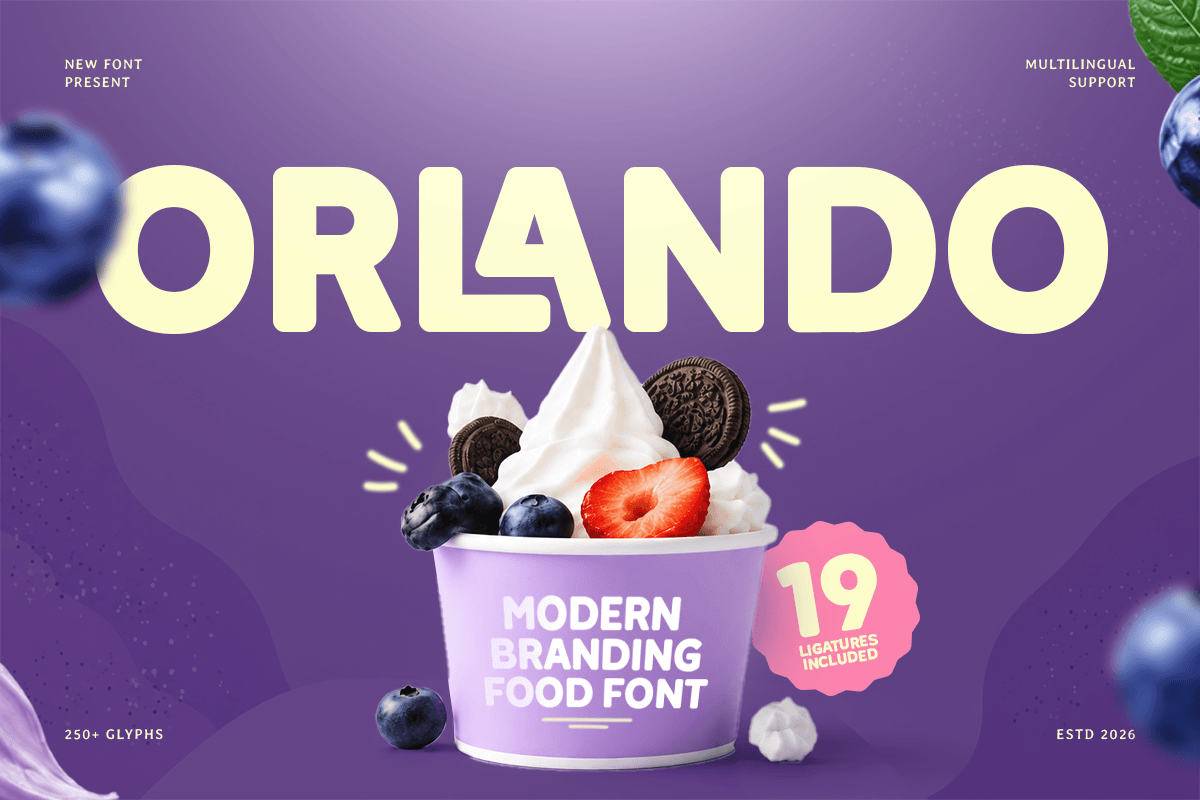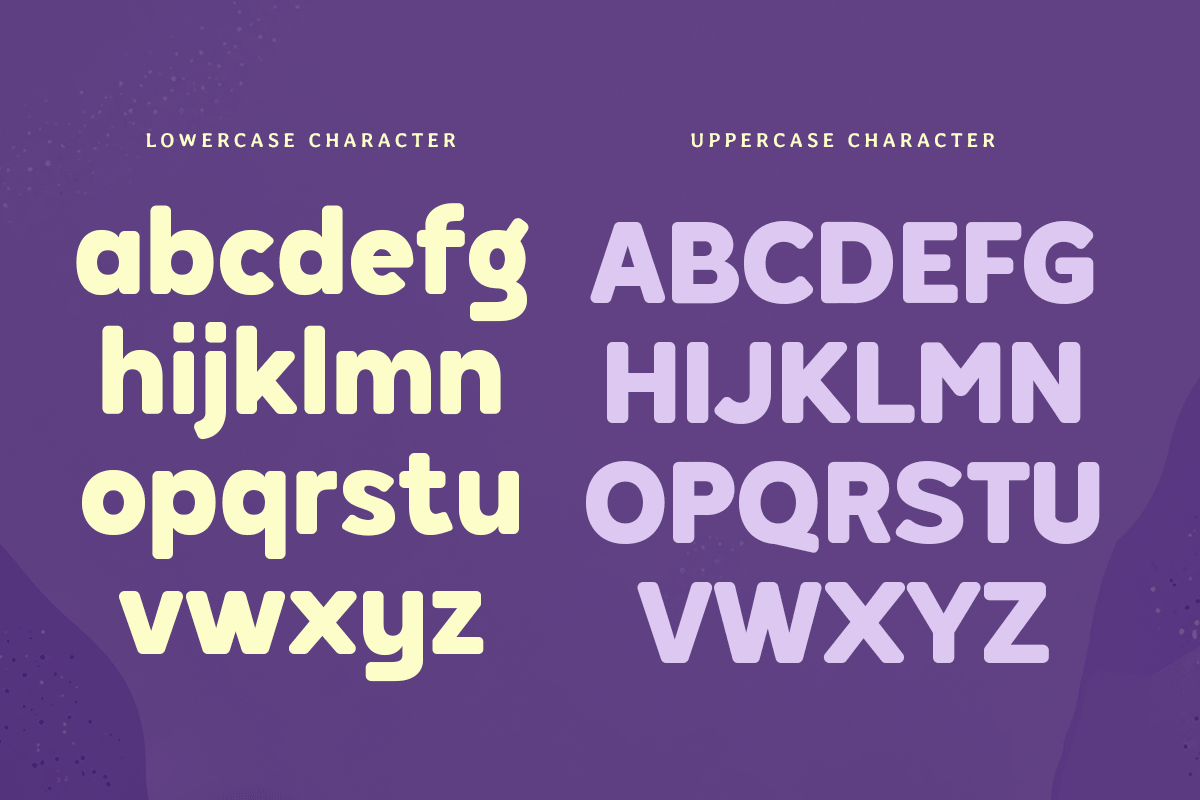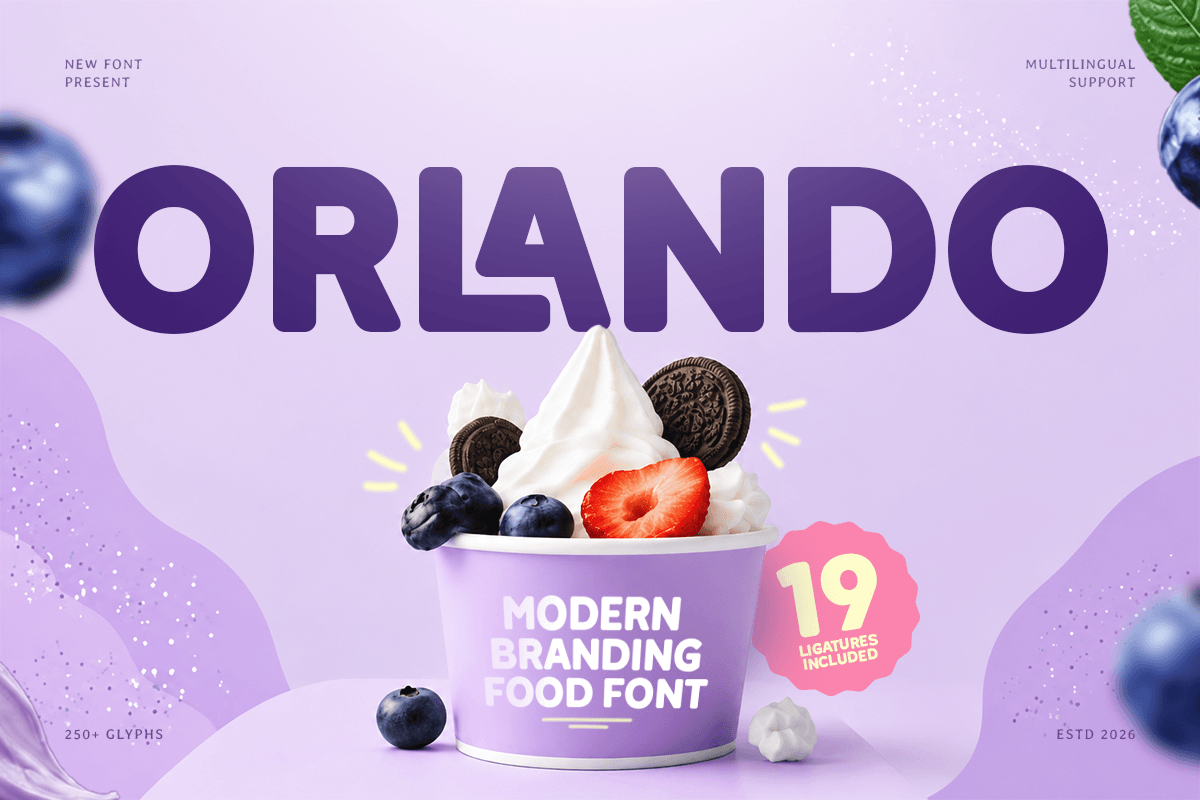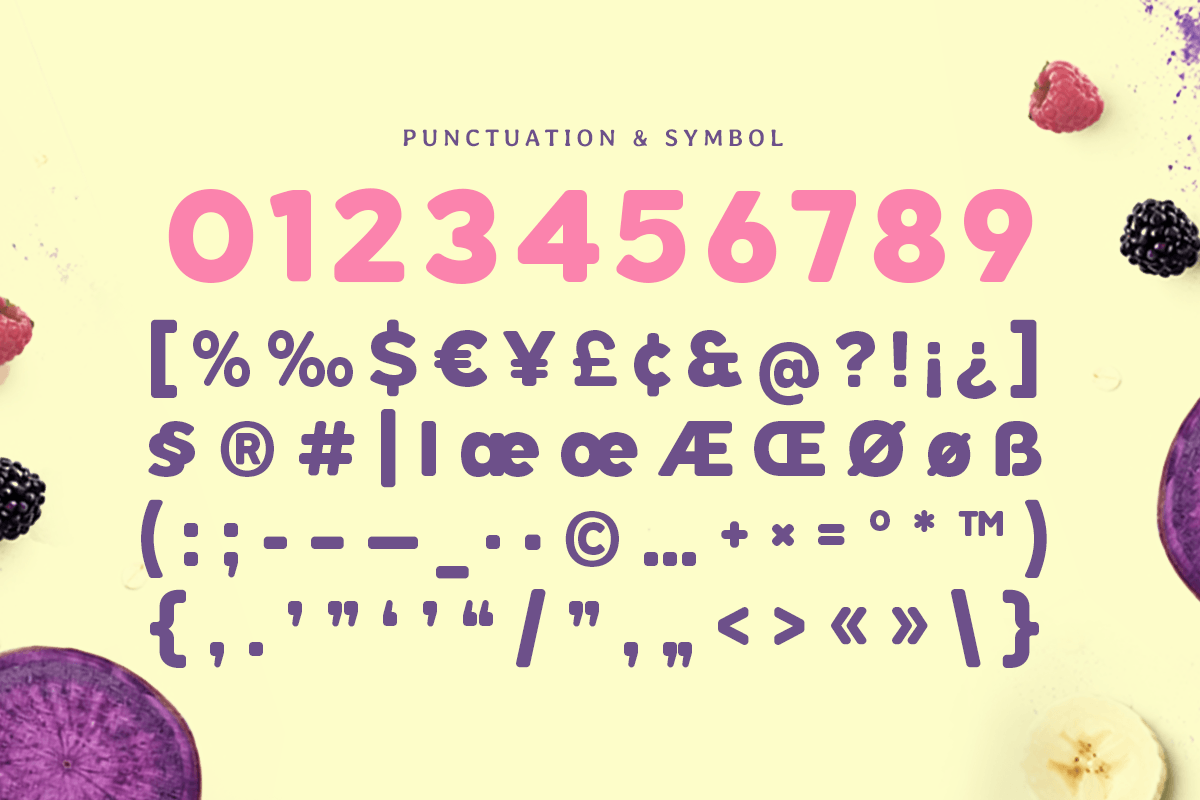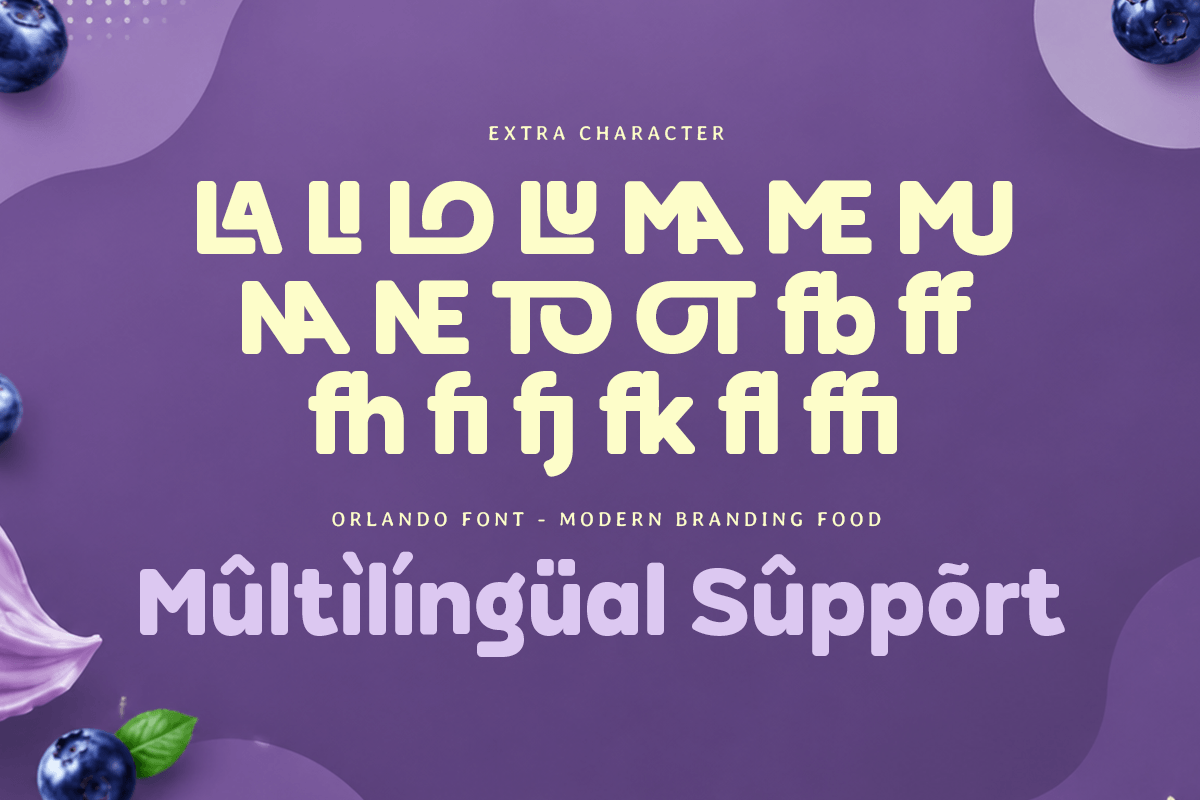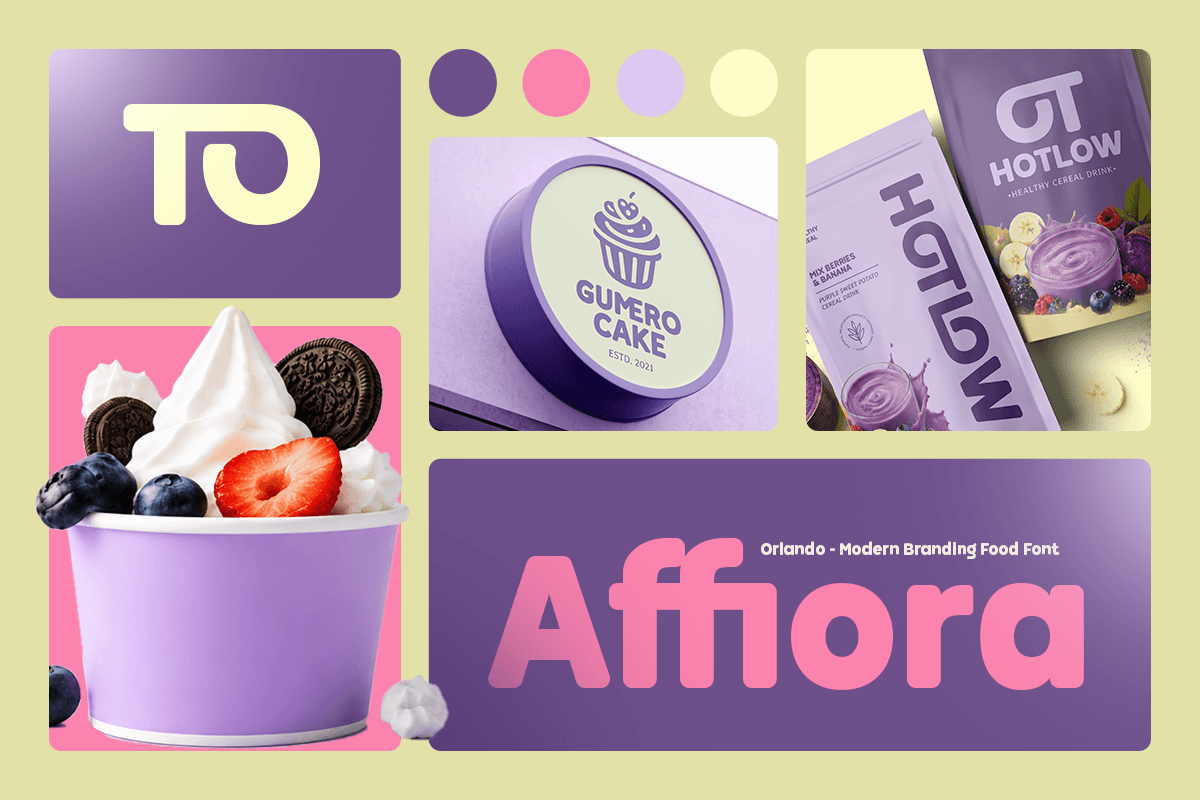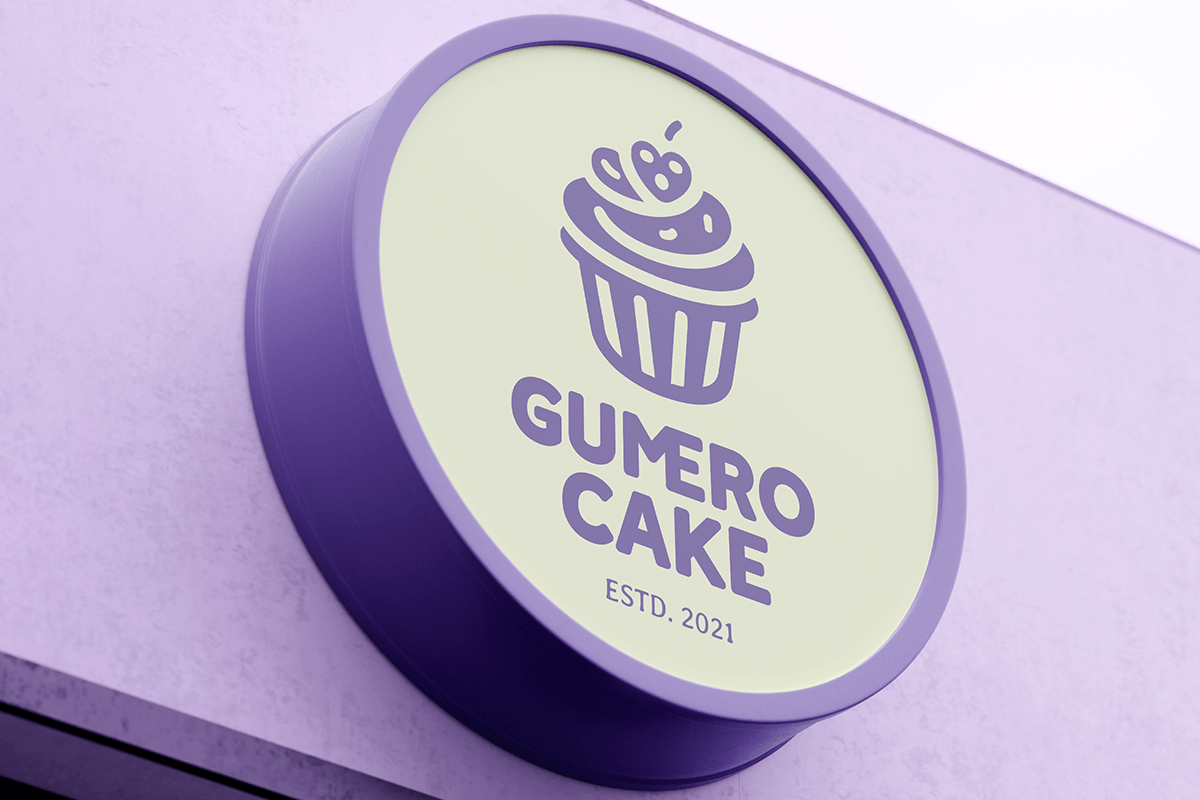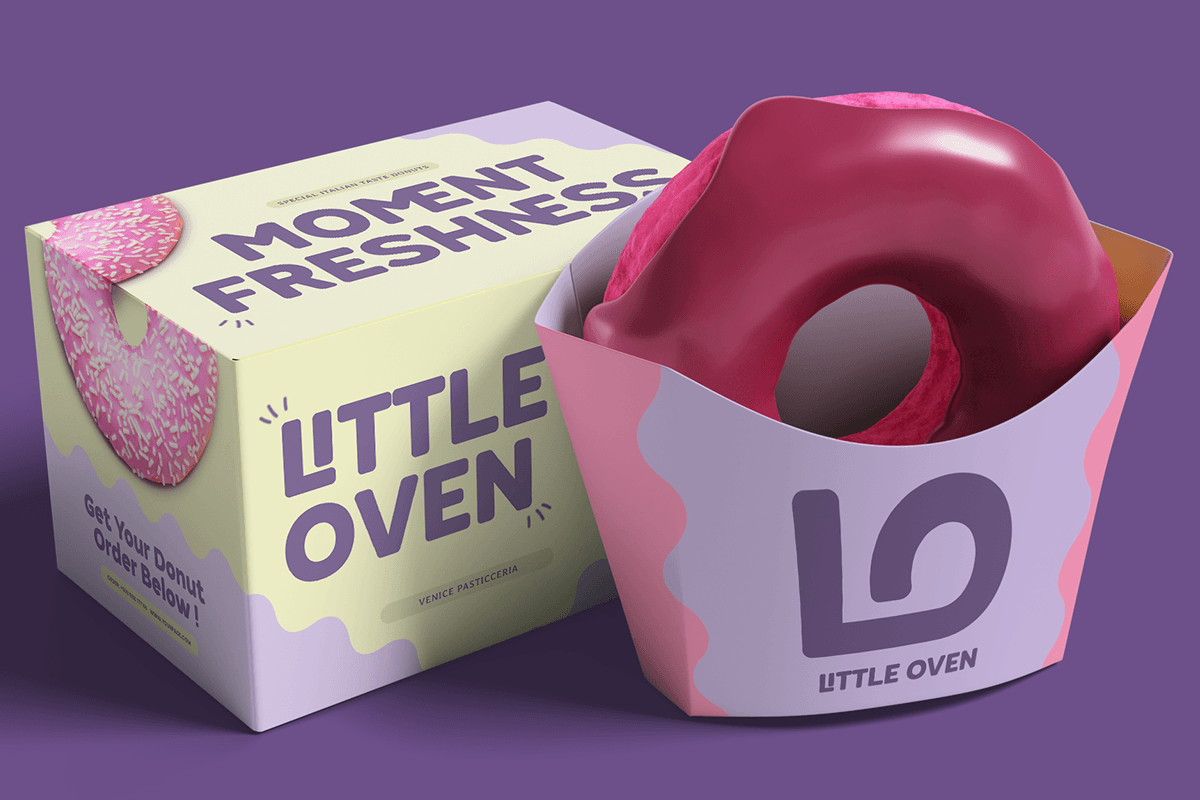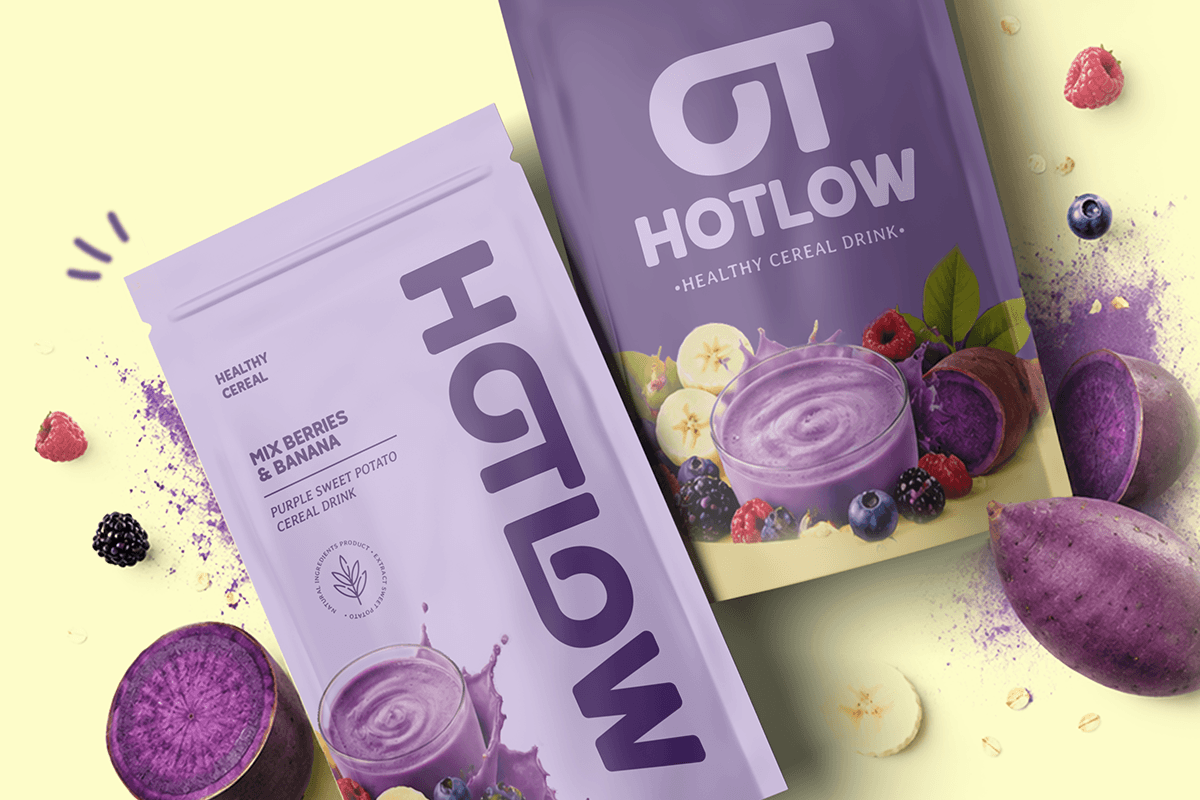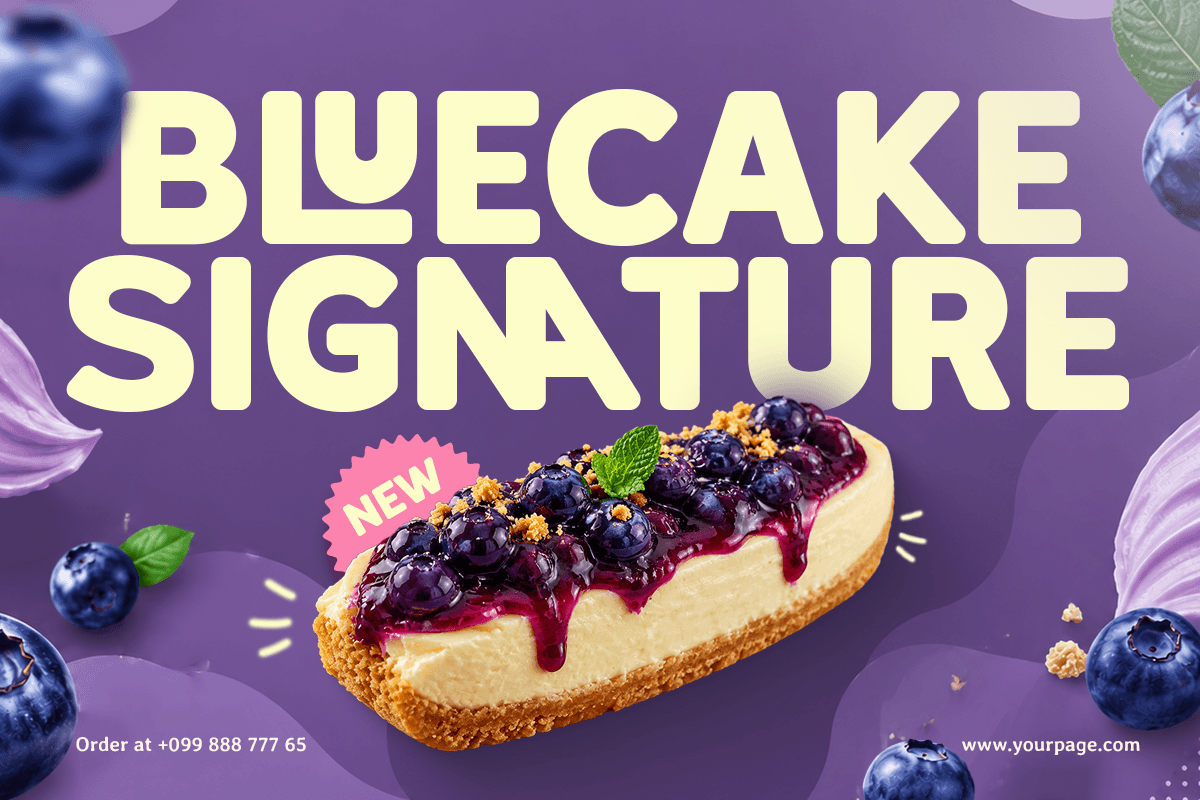
ORLANDO – Branding Food Font
ORLANDO is a branding food font designed to bring a warm, inviting, and memorable personality to culinary brands. With its friendly shapes and creative character, ORLANDO creates a delicious visual style that feels perfect for modern food businesses, cafes, restaurants, and lifestyle brands.
Ideal for food packaging, menu designs, logos, product labels, social media content, and promotional materials, ORLANDO helps your brand communicate a fresh and approachable identity. Its charming letterforms make it a great choice for bakeries, coffee shops, snack brands, and handcrafted food products.
Combining modern branding aesthetics with a playful food-inspired feel, ORLANDO offers versatility for both digital and print projects. Whether you are creating a restaurant identity, packaging concept, or creative advertisement, this font adds personality and strong visual appeal to every design.
ORLANDO – Branding Food Font Features
- Friendly and creative food-inspired letterforms
- Perfect for restaurant, cafe, and culinary branding
- Ideal for logos, packaging, menus, and product labels
- Playful style with modern visual appeal
- Includes uppercase, lowercase, numerals, and punctuation
- Great for digital and print design projects
- OpenType features for creative typography flexibility
Multilingual Support